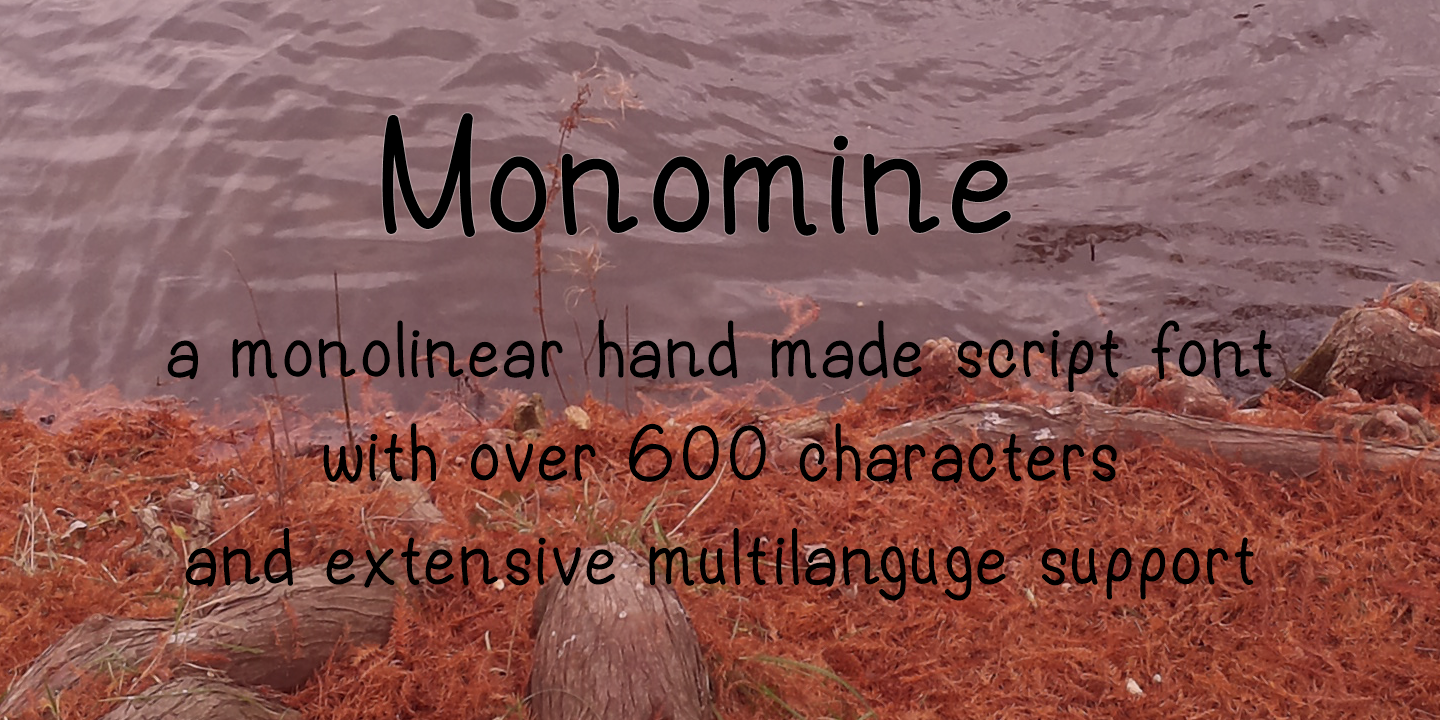
Monomine, a mono-linear fluid font
Monomine is a mono-linear hand made script font created by Andrei Olaru and published by Kreativ Font. Featuring light, regular and bold style with an extensive character map of over 600 glyphs each, are making Monomine is a truly versatile font. Crafted with love over a period of 5 months, specially for our supporters, it can be useful in any handmade design project.
Monomine font feature
Glyphs: Over 600 - Basic Latin, Diacritics, Alternates, Currency
Styles: Light, Regular, Bold